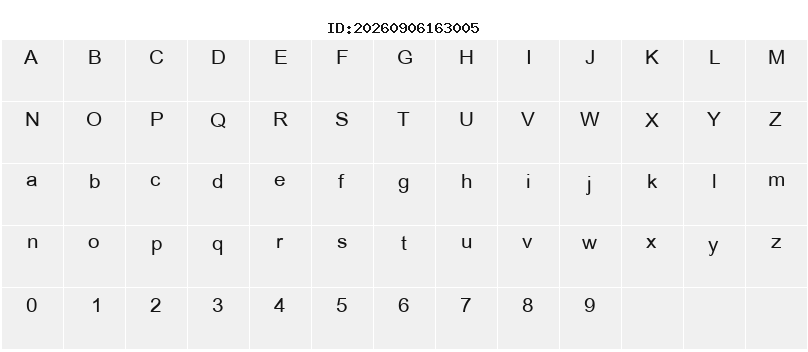
TWA LATIN1 H Preview
• Font Name: TWA LATIN1 H
• Full Font Name: TWA LATIN1 H
About TWA LATIN1 H.ttf
TWA LATIN1 H.ttf is a modern, elegant sans-serif font designed for ultimate readability and visual harmony. Perfect for branding, headlines, web design, and print materials.